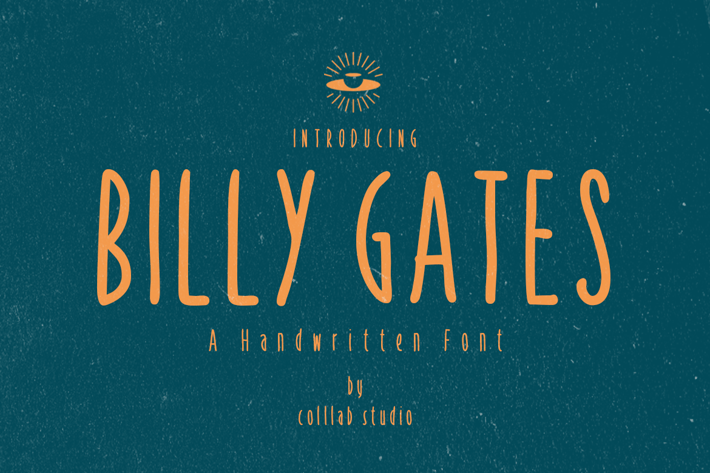
Billy Gates - A Simply Handwritten Font
Colllabstudio
Billy Gates is a monoline handwritten font that is suitable for design projects; playful theme, logo, branding, poster, quotes, display, beautiful stationary art, eye-catching social media posts, and cute greeting cards, and any other designs.
Full uppercase and lowercase glyphs
Numbers, punctuations, and symbols